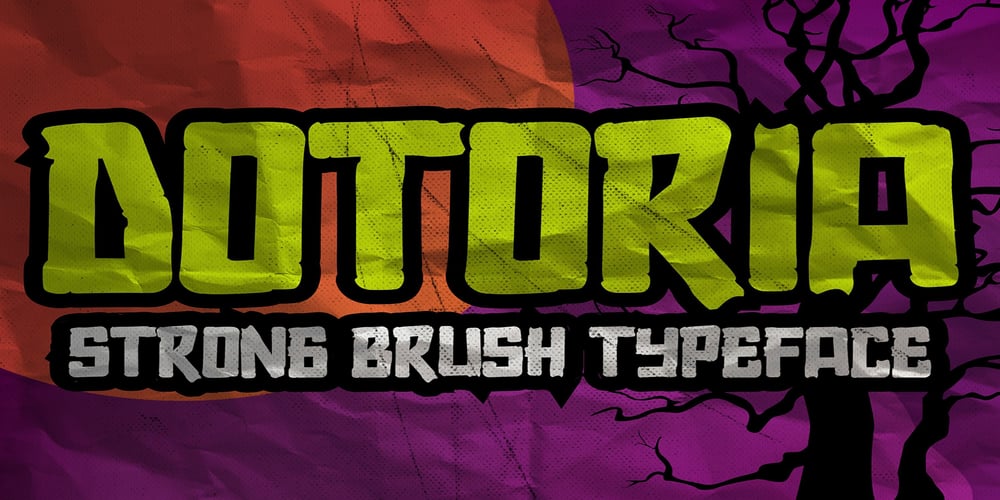
Dotoria Slant Font Family was designed by Abdul Malik Wisnu, Anang Fibriyanto and published by Gassstype. Dotoria Slant contains 2 styles and family package options. Hello Everyone, Introduce our new collection Dotoria is a Handwritten Brush font with comical type. Crafted manually with love and passion, This font is great for your next creative project such as logos, printed quotes, invitations, cards, product packaging, headers, Logotype, Letterhead, Poster, Label, Game project and etc.